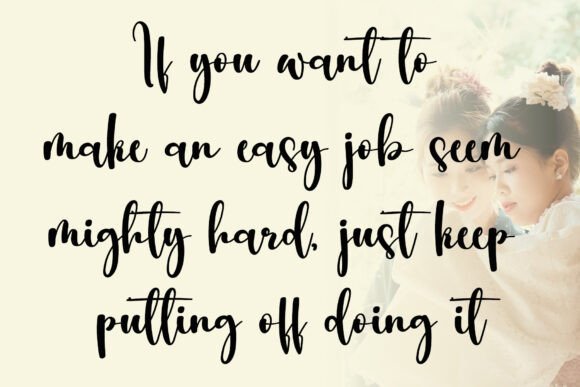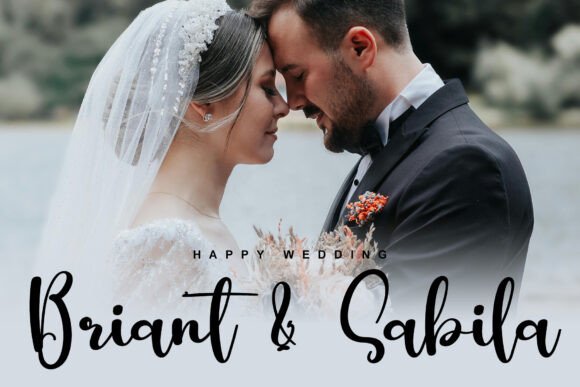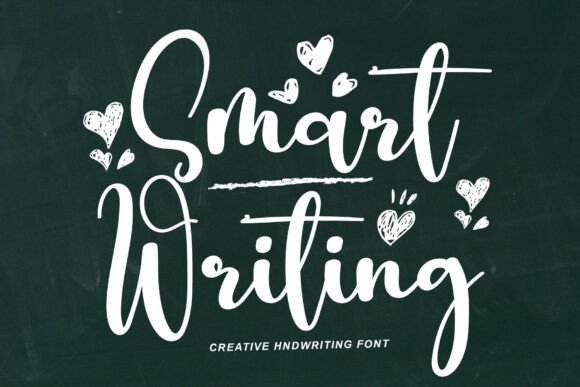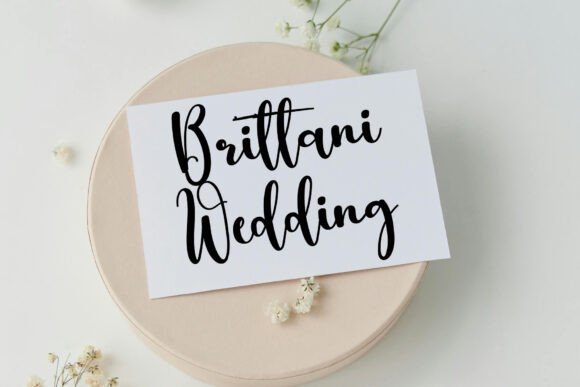
Smart Writing Font
About the Smart Writing Font
Welcome to the world of Smart Writing Font, a typeface that will inspire your next great project. Smart Writing is a stylish handwritten font with a contemporary atmosphere and impeccable form, inspired by timeless classic calligraphy. Balanced and varied, this font was designed to enhance the beauty of your projects.
Smart Writing Font Usage Examples